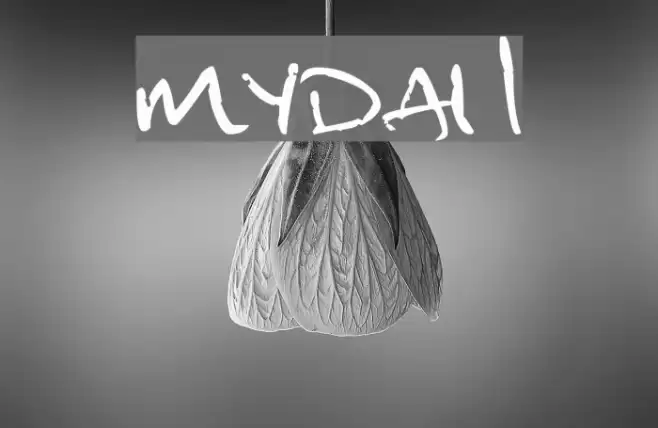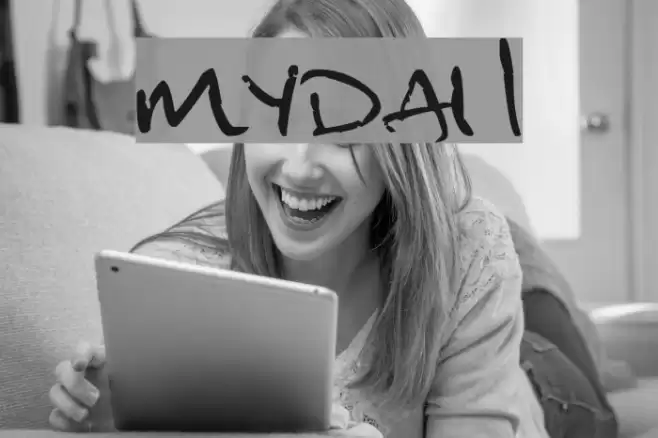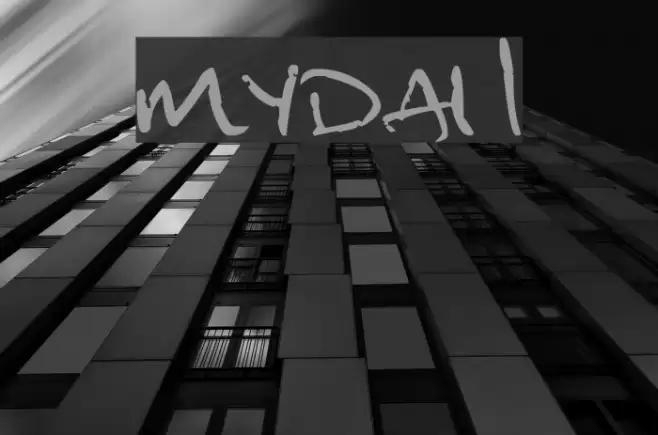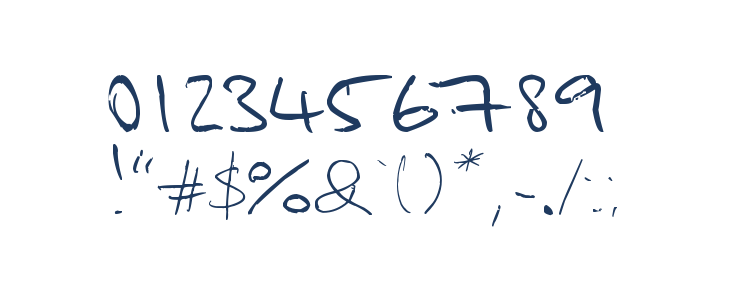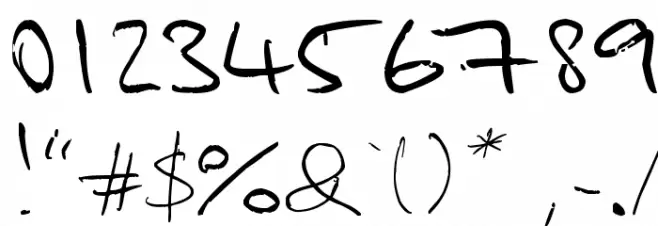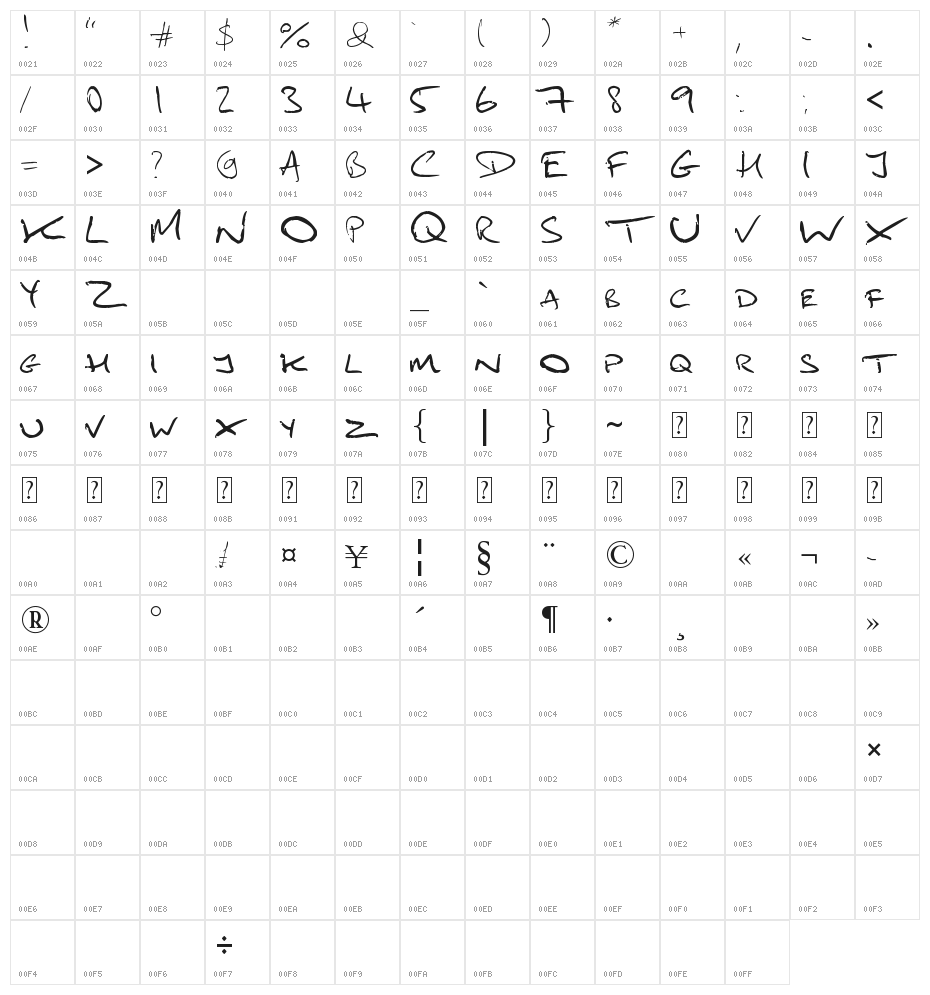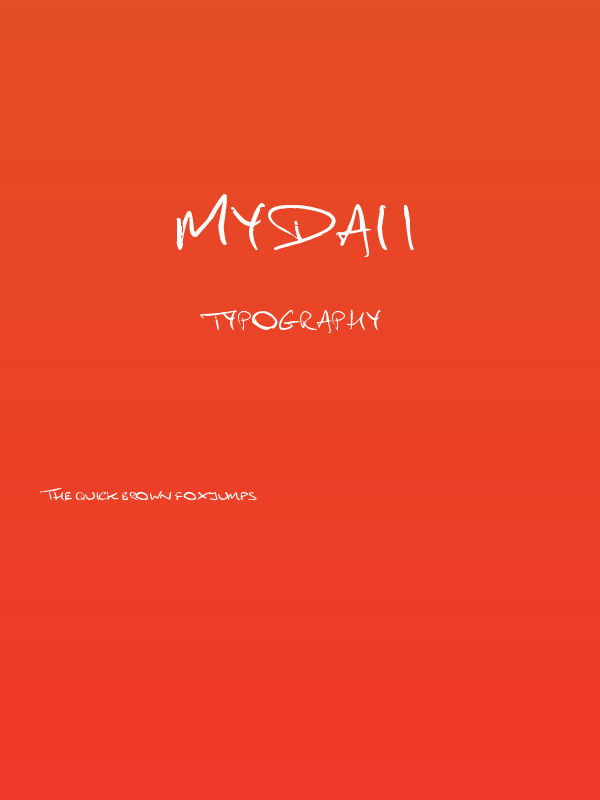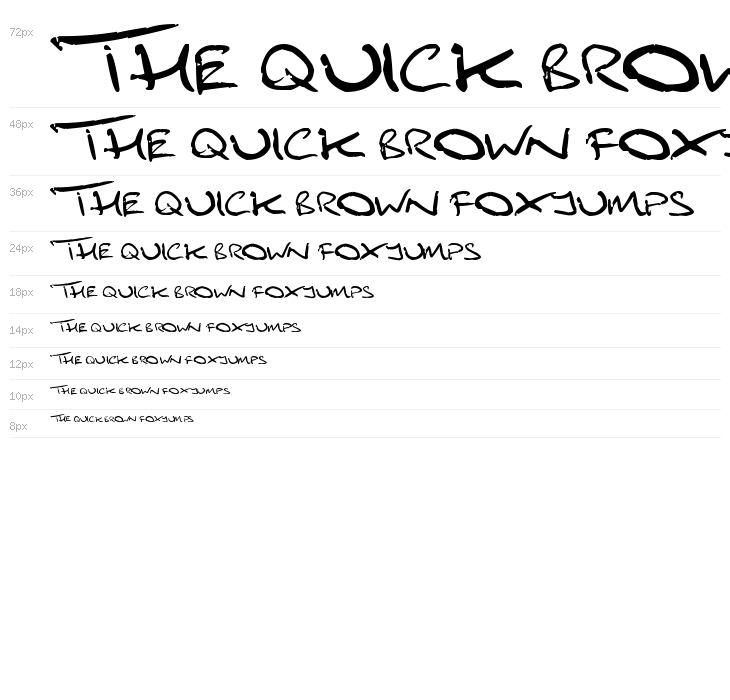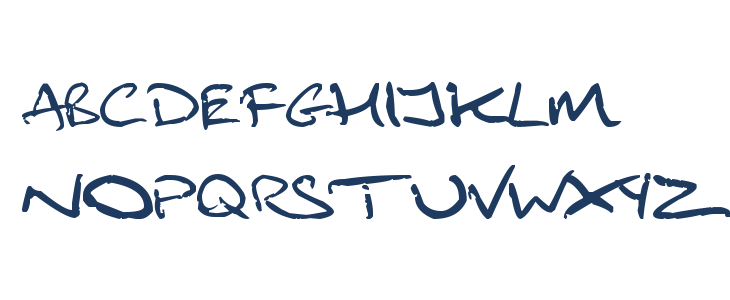
mydai1 Font
mydai1 Description
This font exhibits a dynamic and expressive handwritten style, characterized by its bold and fluid strokes. The letters are crafted with a natural, free-flowing appearance, giving it an energetic and artistic vibe. The uppercase and lowercase letters maintain a consistent style, with varying stroke widths that add to its lively character. The numbers and special characters are equally expressive, complementing the overall aesthetic. This font is ideal for projects that require a personal touch or a creative flair, such as artistic branding, invitations, or expressive headlines.
A bold, expressive handwritten font with fluid strokes and artistic flair from Handwritten fonts.
- Proposed Projects: Ideal for artistic branding, creative invitations, expressive headlines, and personal projects.
- Use Case: Headlines, Logos, Artistic Branding